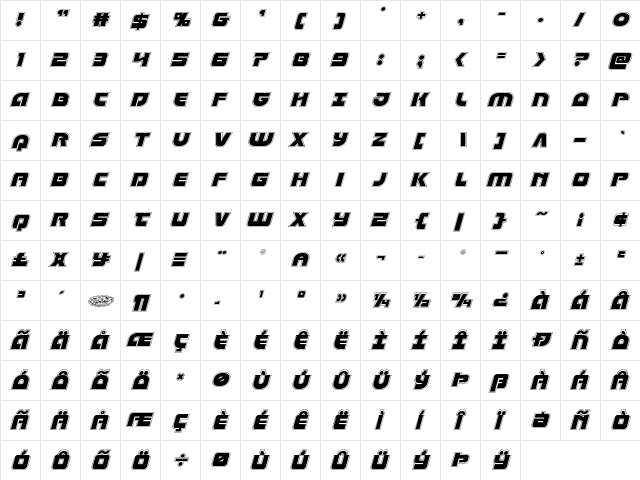
Laser Corps Academy Italic Regular
Design Context for Laser Corps Academy Italic Typeface
Laser Corps Academy Italic is a composed and adaptable typeface that performs quietly and consistently across a wide range of design contexts. Its italic angle brings a sense of urgency and motion to the letterforms.
Pro Tip: Try Laser Corps Academy Italic for annotation and caption copy alongside an upright companion — the contrast in angle creates a dynamic but ordered typographic system.